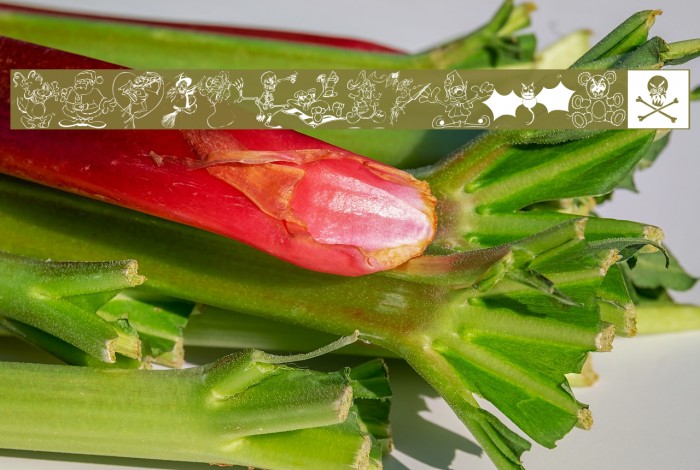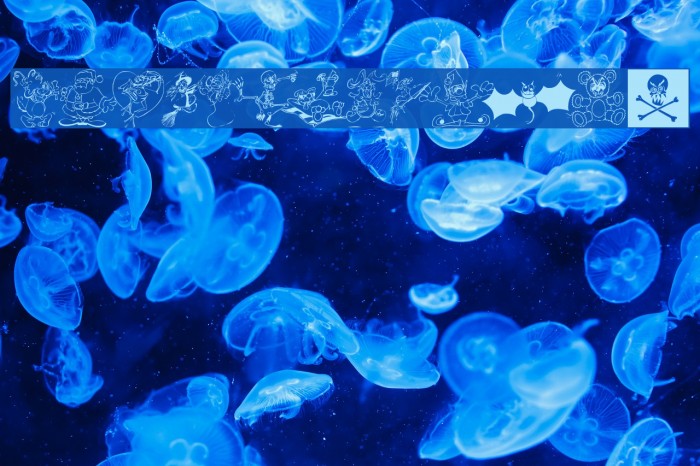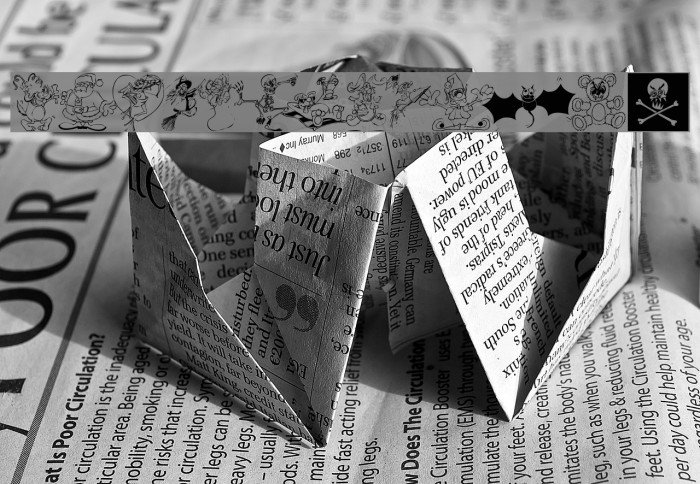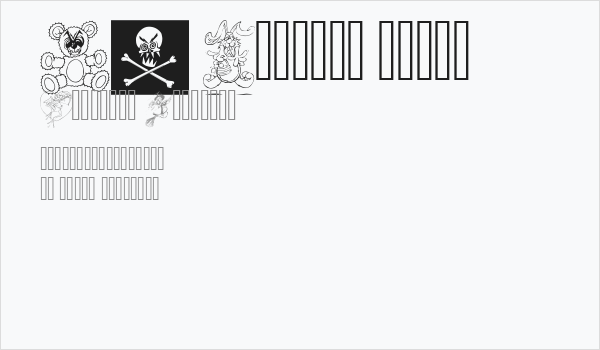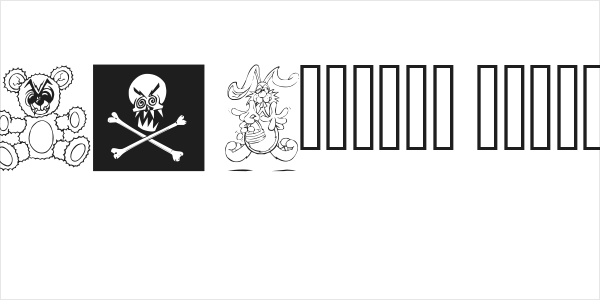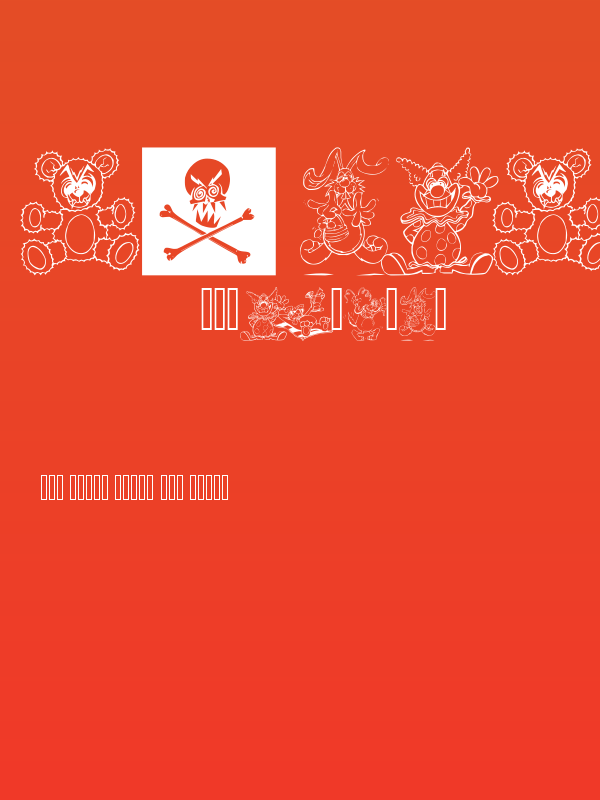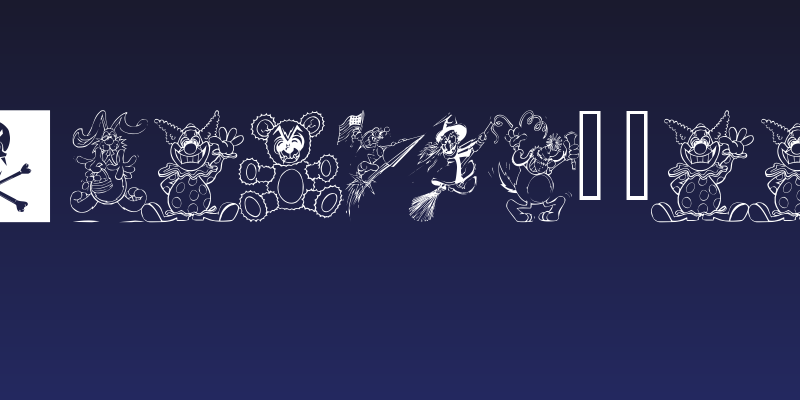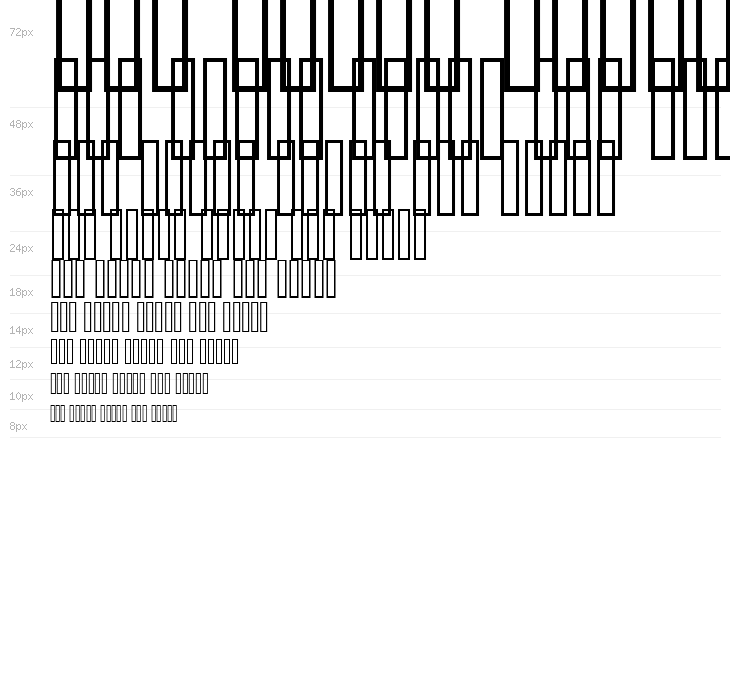
LM Holiday Toons Font
LM Holiday Toons Description
This design features a playful and whimsical style, incorporating cartoon-like characters and elements that evoke a sense of fun and holiday cheer. The characters are expressive and lively, adding a dynamic and engaging visual element. The font itself is highly decorative, with elongated and exaggerated forms that create a unique and eye-catching appearance. The overall design is bold and striking, making it suitable for projects that aim to capture attention and convey a sense of joy and celebration.
| Overall Style | Playful and Whimsical |
| Use Case | Headlines, Decorative elements |
| Proposed Projects | Ideal for holiday-themed posters, children's party invitations, playful branding, and festive greeting cards. |